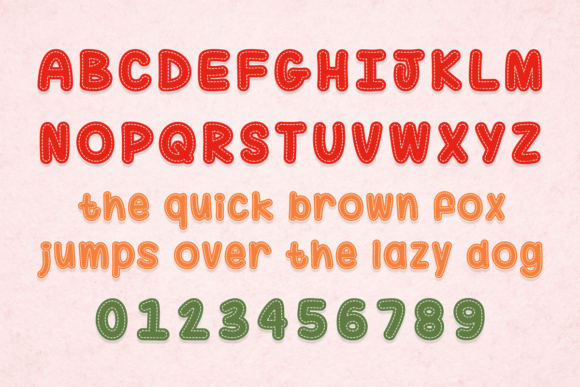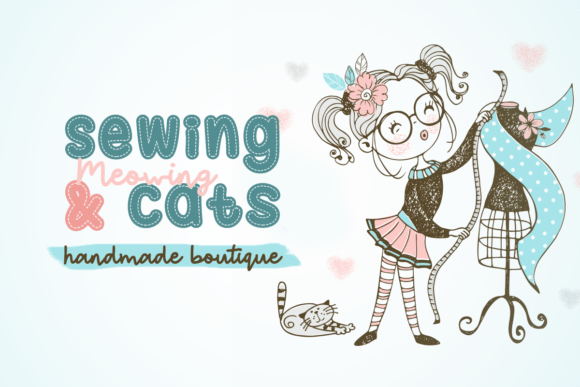
Introduction to Quirky Stitch Font
Quirky Stitch is a fun chunky typeface lined with a stitching pattern.
It is perfect for Etsy shop logos, website banners, kids projects, sublimation, personalized items and so much more .
Key Features of Quirky Stitch Font